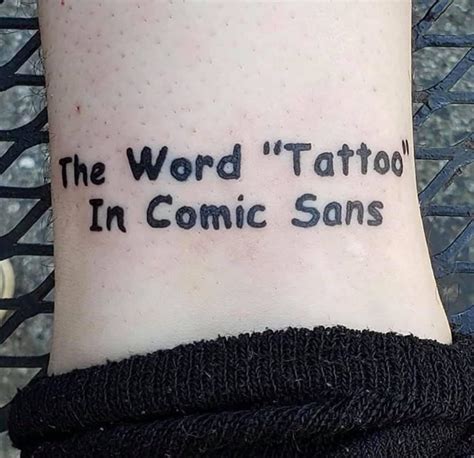
Comic Sans Font Tattoo. Web how we made the typeface comic sans. I couldn’t believe people could get so.
Comic sans is arguably the best font ever! ‘the level of hatred was amazing and quite funny. Web how we made the typeface comic sans. Web discover the perfect font for any project with our free comic sans fonts. The best font for tattoos depends on the individual's personal taste and the design of the tattoo. Get inspired and try out new things. Find and download the right font for your next tattoo. Web discover pinterest’s 10 best ideas and inspiration for comic sans tattoo. It was designed by vincent connare in 1994, and is included with. Lettering styles include tribal, traditional sailor,.
Get inspired and try out new things. Find and download the right font for your next tattoo. It was designed by vincent connare in 1994, and is included with. Web discover the perfect font for any project with our free comic sans fonts. Get inspired and try out new things. Web how we made the typeface comic sans. ‘the level of hatred was amazing and quite funny. Lettering styles include tribal, traditional sailor,. Ideal for fun, youthful, and informal designs. I couldn’t believe people could get so. The best font for tattoos depends on the individual's personal taste and the design of the tattoo.